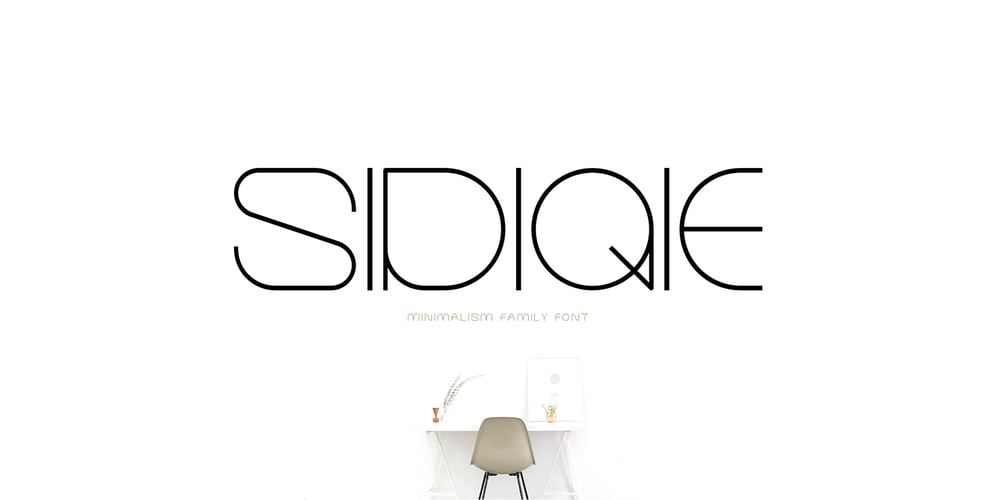
Sidiqie Font Family was designed by Sutrisno Al Rasyid and published by Chococreator. Sidiqie contains 4 styles and family package options. Sidiqie is a modern sans serif with a monoline and minimalist style. With smooth, neat lines, and with just a hint of contrast, Sidiqie works beautifully for logos, branding, and web titles.See examples for some examples of how you can use them.Includes Sidiqie Light Sidiqie Reguler Sidiqie Bold Sidiqie Black Support for western languages